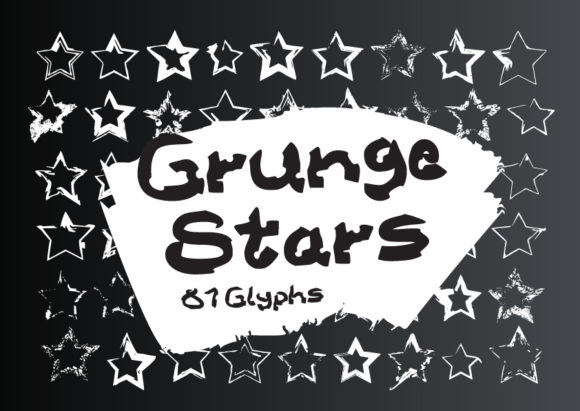
**Introducing Grunge Stars: The Font That'll Turn Your Designs into Twinkling Night Skies**
Prepare to be starstruck by Grunge Stars, the font that's ready to take your designs on a cosmic adventure. This out-of-this-world font boasts a collection of 80 enchanting grunge and cute stars, each one brimming with a unique personality that will add a touch of magic to your creations.
Crafted with love by the talented designers at GraphicsBam Fonts, Grunge Stars is the perfect font for adding a touch of celestial charm to your designs. Whether you're creating greeting cards, invitations, or social media posts, this font will help you make a statement that's sure to leave a lasting impression.
With its versatility and undeniable charm, Grunge Stars is the perfect choice for designers of all levels. Let your imagination soar and explore the endless possibilities that this font has to offer. From whimsical invitations to edgy greeting cards, the creative possibilities are limitless.
So why wait? Embark on a cosmic journey today with Grunge Stars, the font that will transform your designs into masterpieces. Embrace the magic of the stars and let your creativity reach new heights.